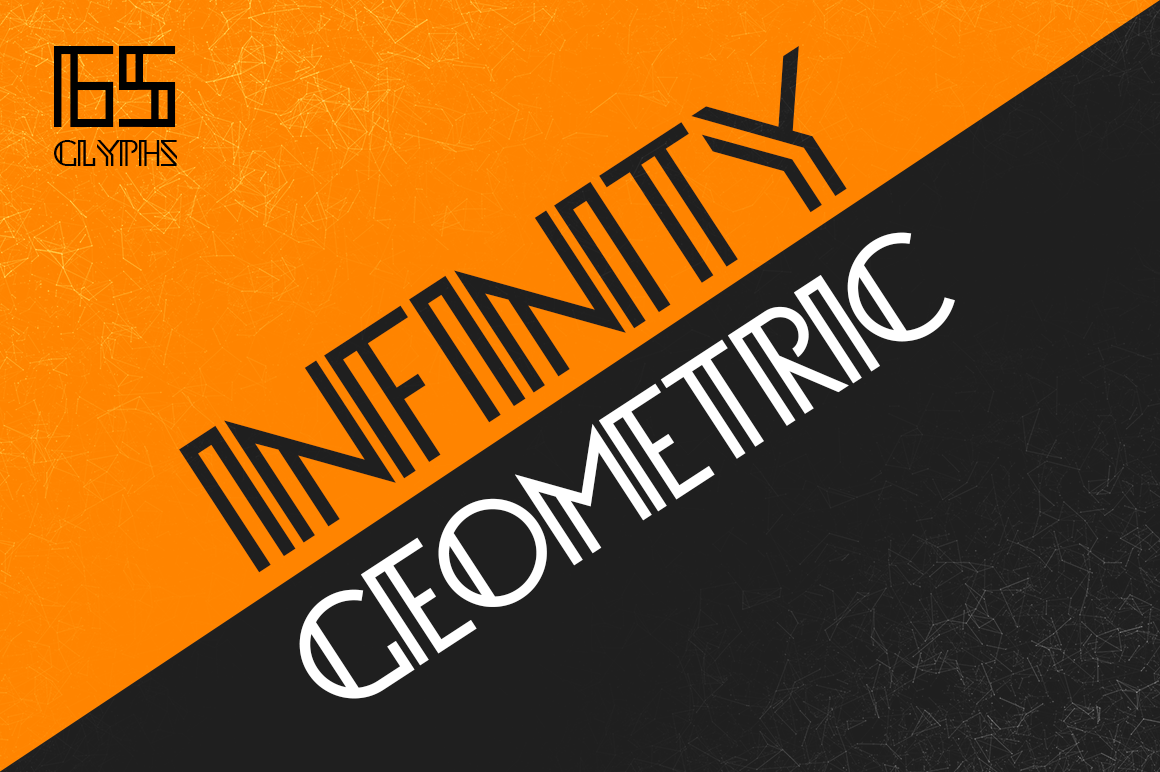
Infinity Geometric Font
Infinity Geometric is a font I designed as the result of working on a logo for a dear friend. The typeface has a geometric style and it is perfect for badges, logos, headlines and display. The font has uppercase letters, numbers and some of the base use glyphs